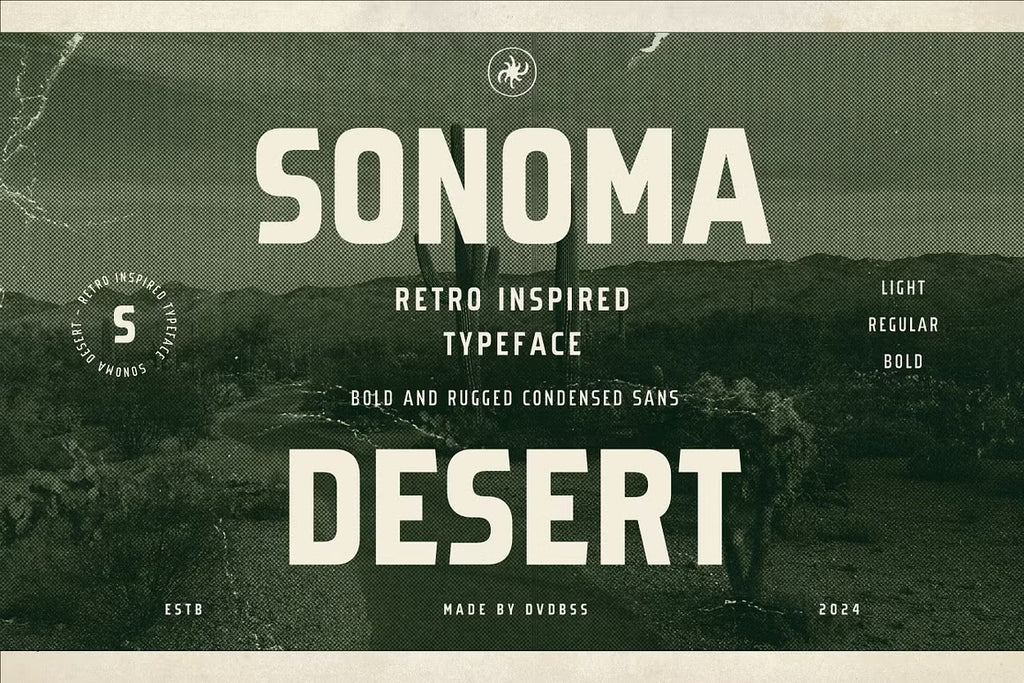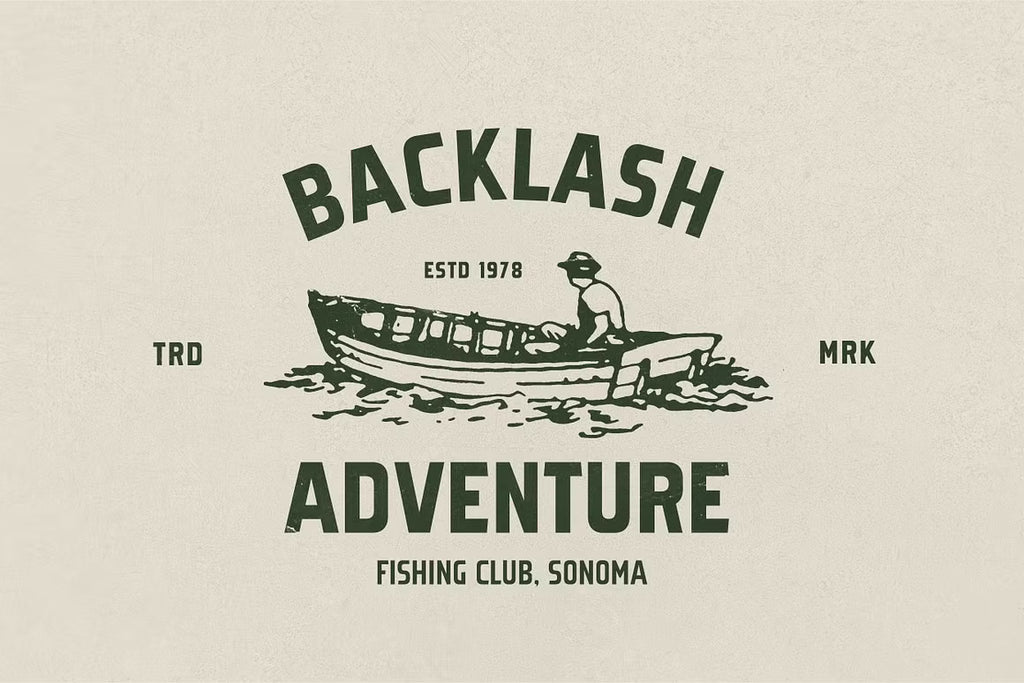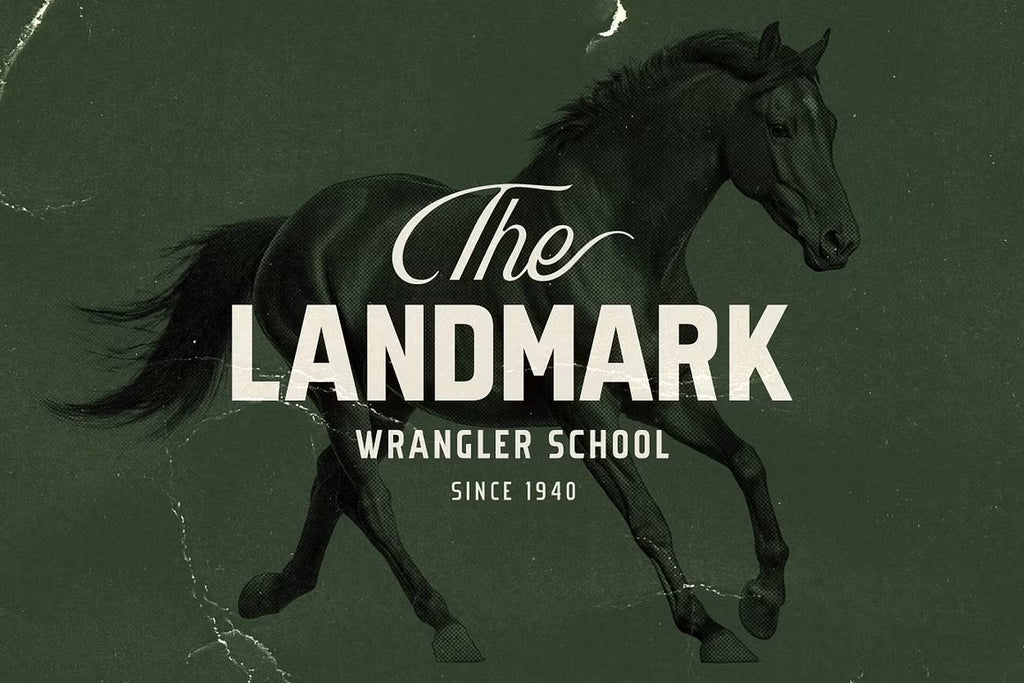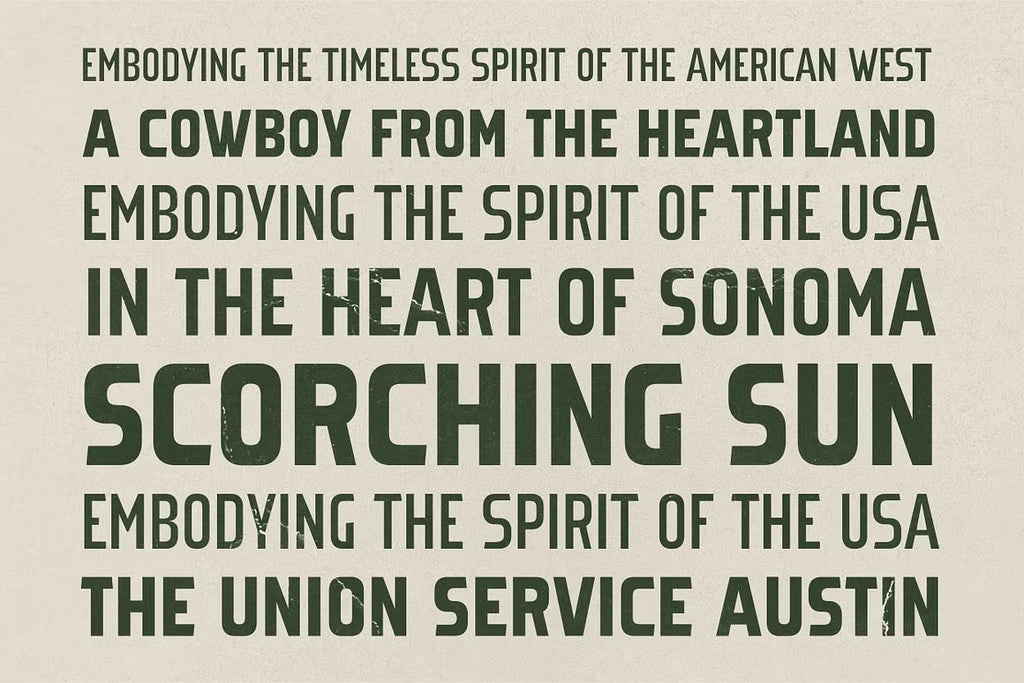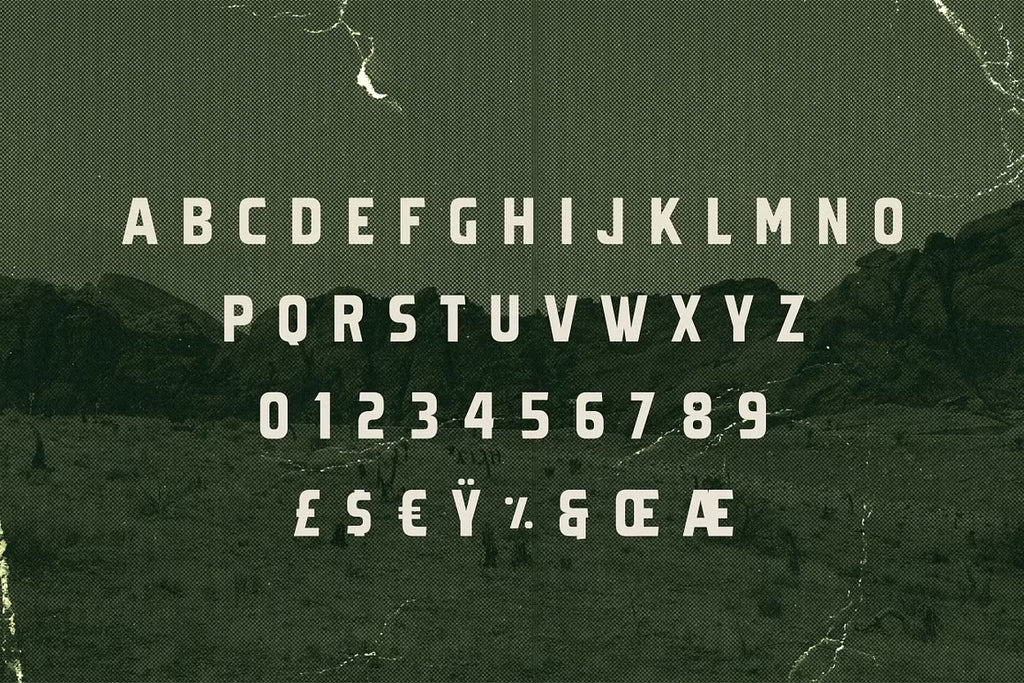
Sonoma Desert Typeface evokes the rugged beauty of sun-baked highways and vintage desert signage. This condensed retro sans serif brings a strong, adventurous spirit to your designs with its bold presence and timeless character.
Available in three weights — Light, Regular, and Bold — it gives you the flexibility to create everything from clean headlines to powerful branding statements. Whether you're working on outdoor apparel, western-inspired projects, or modern retro aesthetics, Sonoma Desert adds that authentic road-worn charm.
A versatile workhorse font perfect for those who want their words to feel like they’ve traveled miles under the desert sun.